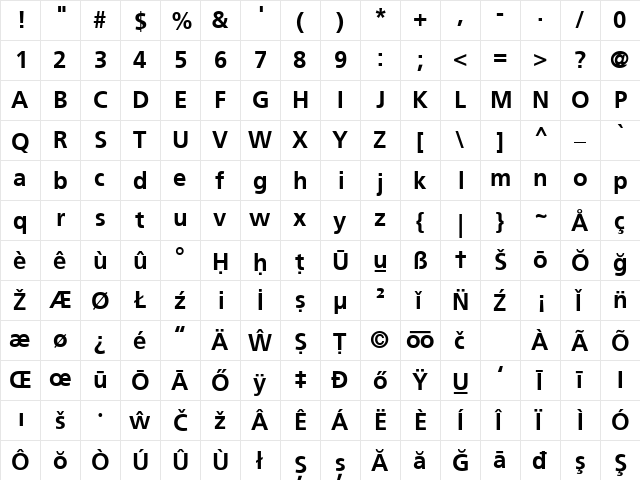
Frutiger SAIN Bd v.1 Bold
Design Context for Frutiger SAIN Bd v.1 Typeface
Frutiger SAIN Bd v.1 takes a measured approach to typography — its balanced proportions and neutral character make it a reliable workhorse for both digital and print work. The heavy weight commands attention and anchors typographic hierarchies.